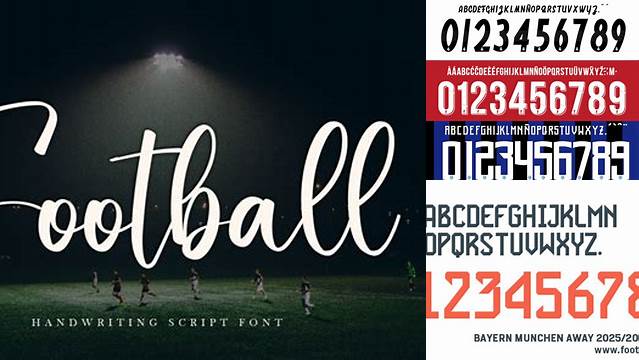
Free Football Font TTF Downloads 2026: Your Guide
Welcome, football fanatics and design enthusiasts! If you're on the hunt for the perfect font to capture the energy, passion, and thrill of the beautiful game, you've landed in the right place. We're diving deep into the world of football fonts, specifically focusing on the free download options available in the TTF (TrueType Font) format for 2026. Get ready to elevate your football-themed projects, whether it's for your local team's website, a personalized poster, or even just for fun. Let's kick off!
1. Unveiling the Best Football Fonts for 2026: Free TTF Downloads
Alright guys, let's get straight to the point: finding the perfect football font can be a game-changer for your designs. It’s about more than just picking letters; it’s about capturing the spirit of the sport! For 2026, the choices are wider than the pitch, and thankfully, a lot of them are available as free TTF downloads. This means you can easily install them on your computer and start using them in programs like Photoshop, Illustrator, Canva, and more. We’re talking about fonts that scream “goal!”, “victory!”, and “team spirit!” Think bold, strong fonts that look great on jerseys, banners, and social media posts. You'll also find more subtle, elegant options perfect for official documents or websites. The key is to explore and find the one that resonates with your project's vibe. Remember, the best football fonts often have a touch of athleticism and a clear, legible design, ensuring your message is both stylish and easy to read. Downloading these free TTF fonts is usually a straightforward process, involving a quick search on a font website, clicking the download button, and then installing the file on your computer. Make sure to check the licensing terms before using the font commercially, some are free for personal use only! This allows you to use these fonts without any cost. From classic block letters to modern, dynamic designs, the possibilities are endless.
2. The Significance of Font Choice in Football Branding
Choosing the right font is crucial in football branding, guys. It's like the team's jersey – it represents who they are and what they stand for. The football font you select becomes a visual ambassador for your team or project, communicating values and creating an immediate impression. A strong, impactful font suggests power, determination, and a winning attitude, ideal for a professional team. Alternatively, a more playful font might be perfect for a youth league or fan merchandise, creating a sense of fun and approachability. The font is used on team logos, uniforms, website headings, social media posts, and promotional materials; making it a consistent element throughout all branding efforts. So, a well-chosen font will create brand recognition and a cohesive identity across all platforms. The right football font can evoke emotions, connecting with fans on a deeper level and building loyalty. Think about the font used by your favorite team; it's instantly recognizable and part of their identity. This is the power of a well-selected font in the football world.
3. Free TTF Fonts: Your Gateway to Football-Themed Designs
Now, let's get down to brass tacks, shall we? Free TTF fonts are your best friend when you're on a budget but still want to create awesome football-themed designs. TTF (TrueType Font) is a standard format, meaning it's compatible with most design software. So, you don’t have to worry about compatibility issues. These free resources make professional-looking design accessible to everyone. You can find amazing fonts without spending a dime. There are countless websites offering free TTF fonts, ranging from dedicated font sites to design resource platforms. Explore different websites, comparing options and styles until you find a font that fits your project's needs. It's like a treasure hunt, discovering unique fonts to elevate your designs. Remember to check the licensing terms of each font. Some fonts are free for personal use but require a license for commercial projects. This is very important! With the right TTF football font, your designs can look professional, captivating fans, and reinforcing brand identity. Don't be afraid to experiment and find the perfect font to capture the essence of your project.
6. Choosing the Right Font: Matching the Font to Your Football Project
Picking the right font for your football project isn't a one-size-fits-all deal, guys. It’s all about matching the font's style to the project's goals. A bold, aggressive font might be perfect for a team's logo, conveying strength and dominance. If you're designing a website, consider a clean, legible font that's easy on the eyes, enhancing user experience. For a youth league, maybe a more playful and friendly font would be a better fit. Think about the target audience – are you designing for kids, adults, or a general audience? The font should resonate with your audience. Think about where the font will be used. If it’s for headlines, you can use a more decorative font. For body text, you need a clear, easy-to-read font. Consider the overall design style of your project. A modern, minimalist design might call for a sleek, sans-serif font, while a vintage-inspired project might suit a classic serif font. Playing around with different fonts and testing them in your design software will help you see which one best complements your project. The goal is to enhance, not distract. Choosing the right football font takes thought, but the result is a design that’s visually appealing and perfectly aligned with your project’s needs.
7. Understanding Font Licensing: Free vs. Commercial Use
Alright, let's talk about font licensing, which is super important. Most free TTF football fonts come with a license that dictates how you can use them. The key thing to understand is the difference between personal and commercial use. Personal use licenses allow you to use the font for non-profit projects like personal websites, social media posts, and personal projects. Commercial use licenses, on the other hand, cover projects that generate income or are used for business purposes. This includes things like logos, marketing materials, and products sold for profit. Many free fonts are only licensed for personal use. If you intend to use a font for commercial purposes, you must carefully check the font's licensing terms. You might need to purchase a commercial license, which will provide you with the legal rights to use the font for business activities. Ignoring licensing terms can lead to legal issues, so always be sure to read the fine print! If you're unsure, it's best to err on the side of caution and seek clarification from the font's creator. Understanding font licensing is a crucial step in responsibly using TTF football fonts for your projects.
8. Designing Eye-Catching Football Logos with Free Fonts
Creating a killer football logo starts with a killer font. Free TTF football fonts can be the secret weapon you need to make your team's logo stand out! The logo is the face of your team, so the font needs to capture its spirit. Choose a font that reflects your team's personality. Use strong, bold fonts to convey power, or more modern, streamlined fonts for a contemporary look. Consider using a font that is legible, so your team's name is easily readable, even from a distance. Combine the font with other graphic elements like icons, emblems, and colors to build a strong brand identity. When designing, think about how the logo will be used – on jerseys, websites, social media. Test your logo in different contexts to see how it looks. The key is to make a logo that’s both memorable and recognizable. Many online tools and design software programs offer free font options. By making smart font choices, you can use free fonts to design eye-catching, professional-looking logos that capture the essence of your team or project.
16. Testing and Previewing Football Fonts Before Download
Before you commit to downloading a football font, it's always a good idea to test and preview it first. Many font websites offer a preview function, allowing you to see how the font looks with your text. Make sure to test the font with your team's name, logo, or any other text you plan to use. Preview the font in different sizes. This will allow you to see how the font looks on different mediums. Check the font's legibility. Make sure it’s easy to read. Test the font in different design software to see how it integrates with your other design elements. Try different color combinations to see how the font looks in various contexts. Some websites provide a